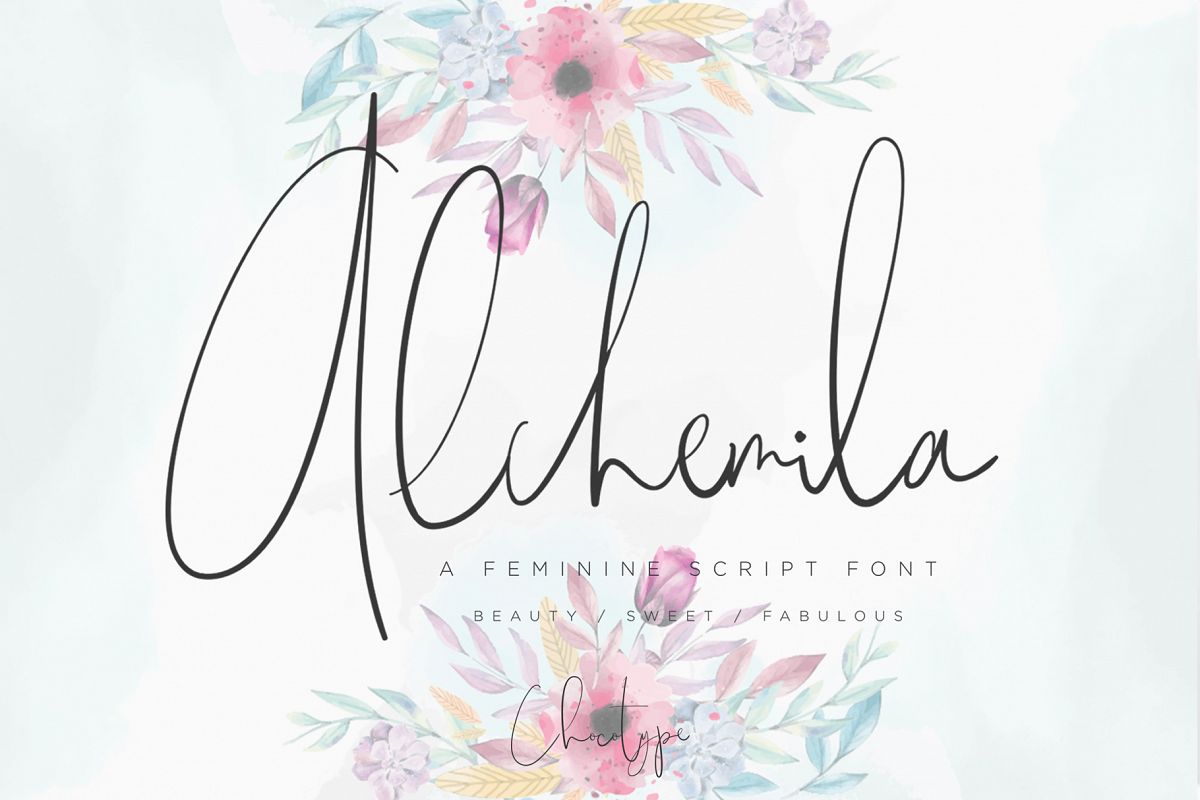
Alchemila
Slip into something more sophisticated with "Alchemila" script font :)
Alchemila includes full set of gorgeous uppercase and lowercase letters, numerals, a range of punctuation , ligatures and also alternates lowercase giving realistic hand-lettered style perfect for use in feminine and editorially oriented designs. This font works best as a header or as the focal point of your creative work! :)